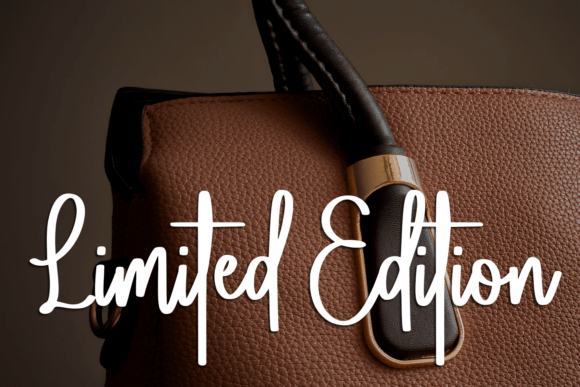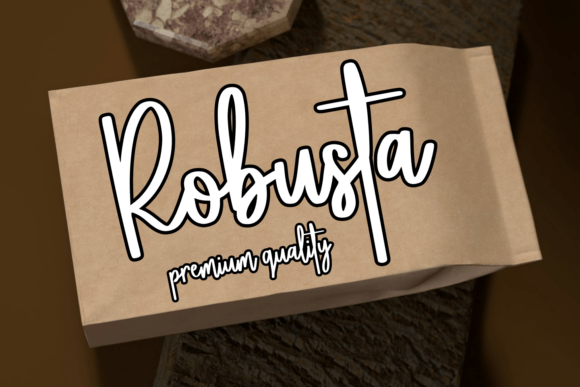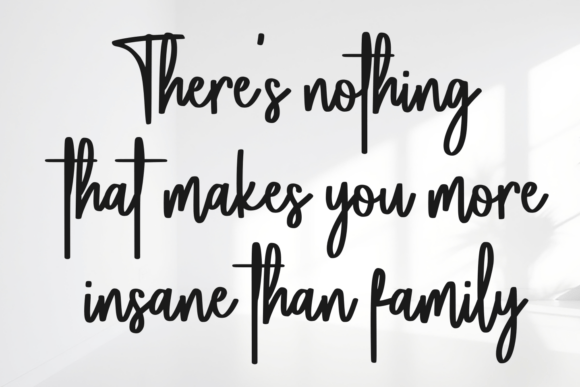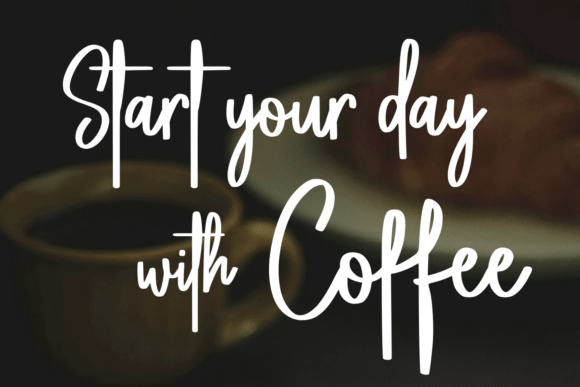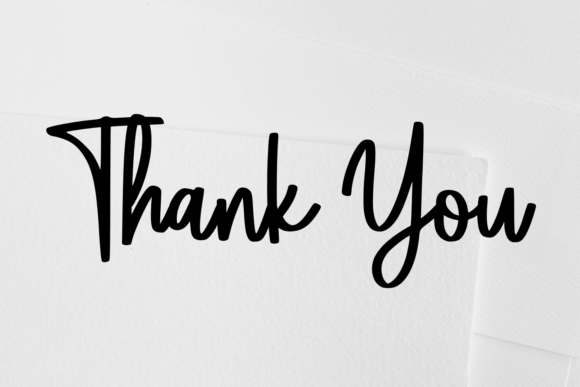
Introduction to Dignition Font
Have you ever found yourself stuck in a creative rut, searching for the perfect font to elevate your project? The struggle is real, but what if you stumbled upon a font that not only speaks to your audience but also reflects your personality? That’s where the Dignition Font comes in – a bold, handwritten script that’s sure to make your designs stand out.
As a designer, you’re always on the lookout for high-quality fonts that can add a touch of sophistication and character to your work. The Dignition Font delivers just that, with its thick, expressive strokes and assertive curves that create a dynamic script that feels intentional and full of personality. Whether you’re working on a logo, poster, or packaging design, this font is sure to be a valuable addition to your design resource.
- Unique, modern design with a sleek and sophisticated aesthetic, perfect for branding, typography, and editorial projects.
Honest Review: Dignition Font
One of the things that stands out about Dignition Font is its high quality. The font is crisp and clean, making it perfect for any project that requires a professional touch. The transparent background also makes it easy to use in any design, whether it’s for a website, brochure, or other marketing material.
- High-quality design that’s perfect for professional projects
One of the limitations of the Dignition Font is that it’s not as versatile as some other fonts on the market. It’s primarily suited for use in headings and titles, rather than body text.
- Not as versatile as some other fonts on the market
- Primarily suited for use in headings and titles
Overall, I’m very impressed with the Dignition Font. It’s a great addition to any design library, and its high-quality design and transparent background make it easy to use in a variety of creative projects.
The Dignition Font is a versatile design resource that can be used in a variety of creative projects, including logos, business cards, and marketing materials. It’s also a great choice for designers who want to create a unique and eye-catching look for their designs. With its high-quality design and transparent background, the Dignition Font is a valuable addition to any design resource library.